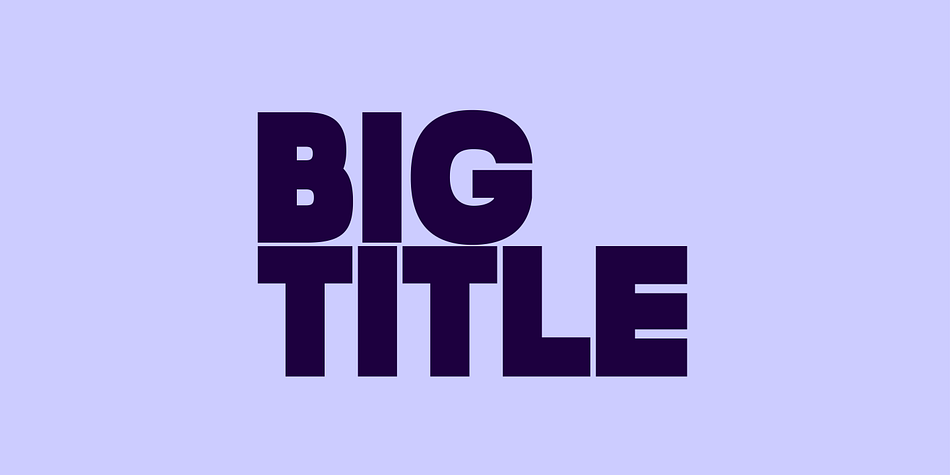
Noda
Designed by Yassine Abdi, Noda is a sans serif font family. This typeface has thirty-two styles and was published by NumidiaType.
Noda™ font is geometrically based and contains two families that are divided depending on the contrast features. The first family is designed with a difference between vertical and horizontal stems, it comes with clear joints, this feature is good for small text sizes in long paragraphs, and the second family is designed with a balanced contrast for an equilibrium stems. Both families have squared curves, and are produced to be used in web design, apps, or motion design.